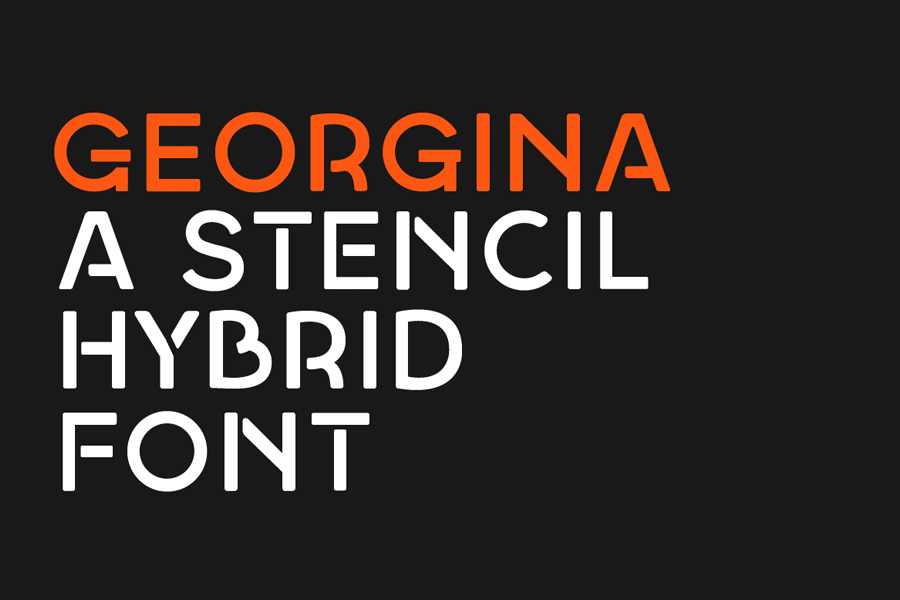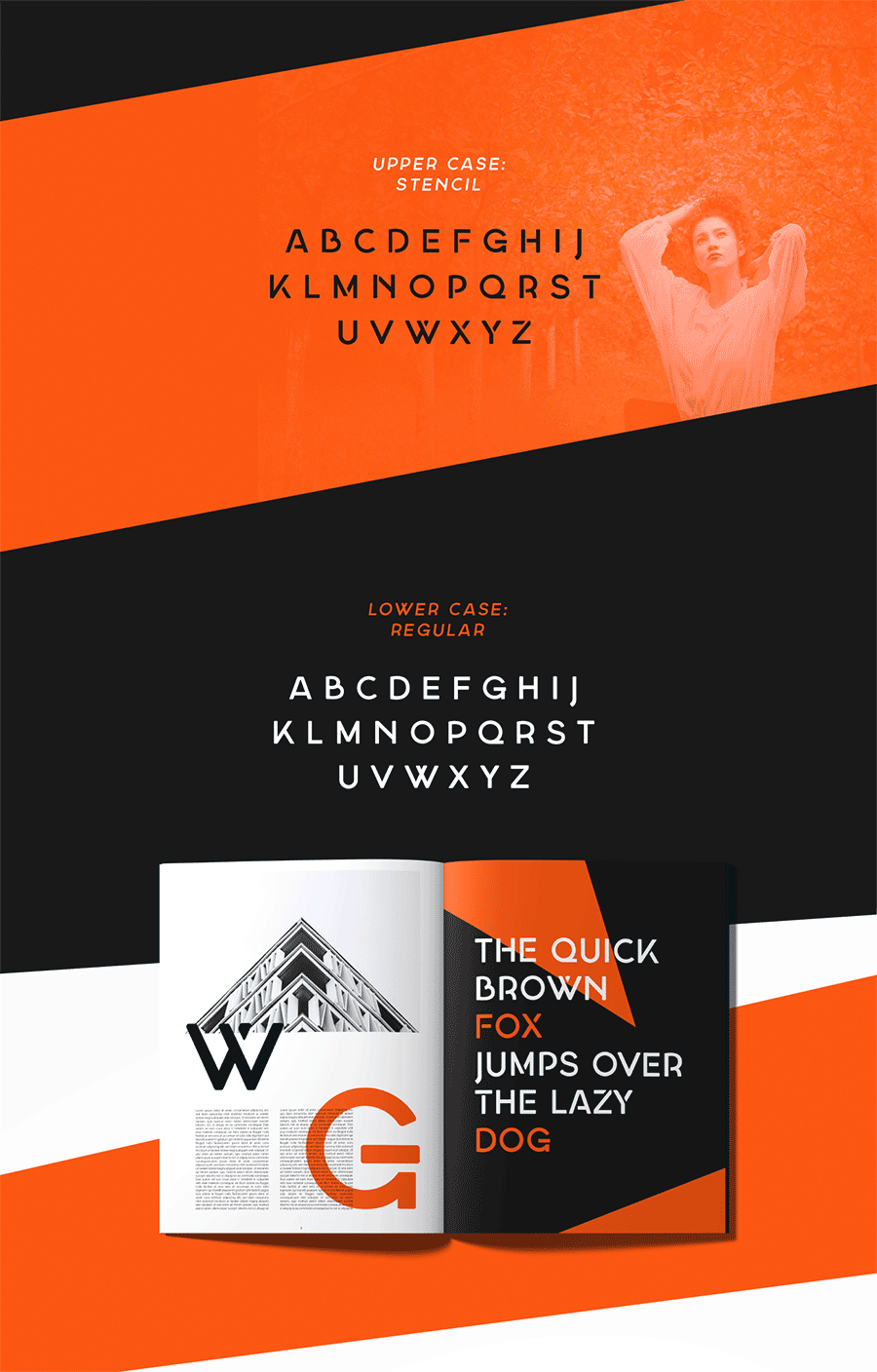
Georgina is a clean, stencil style font with a retro touch. You can combine the capital that has the stencil characters with the lowercases that has the regular, non stencil letters. Georgina is great for headlines, big quotes and typography posters. It’s free for personal use, while license is required for commercial use.